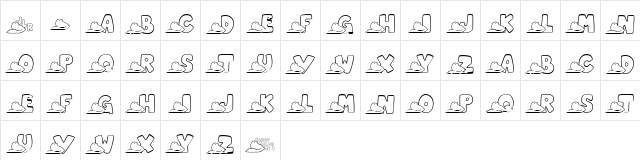
JLR Easter Peeps Regular
Design Context for JLR Easter Peeps Typeface
JLR Easter Peeps is a composed and adaptable typeface that performs quietly and consistently across a wide range of design contexts.